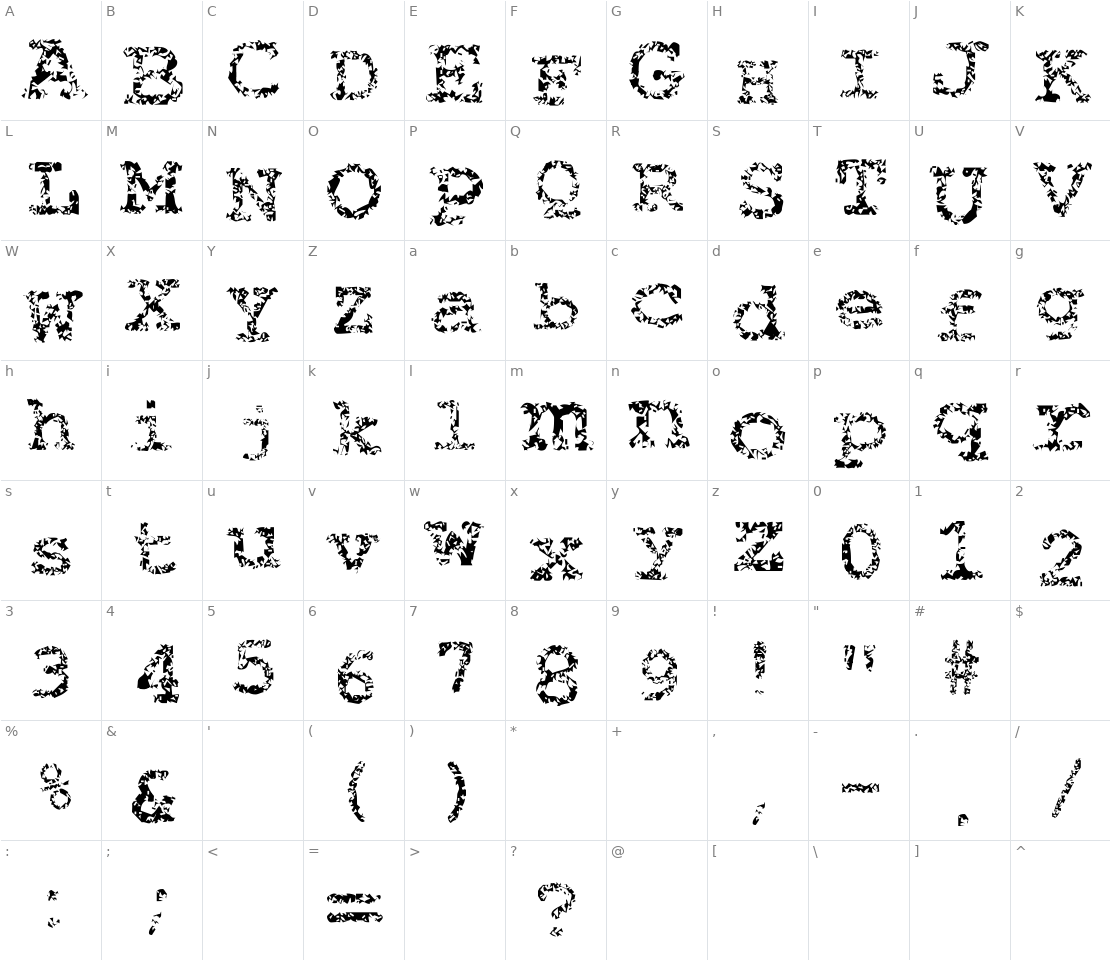
Typewriter From Hell
Typewriter From Hell is a battered, eroded typewriter face from Pizza Dude that looks like it was hammered out on a machine that's been sitting in a basement since the 1940s. The letterforms carry heavy distressing and uneven ink coverage, pushing past vintage charm into genuinely unsettling territory. Built for horror titles, grungy posters, and dark editorial work where you want type that feels like it's decaying on the page.